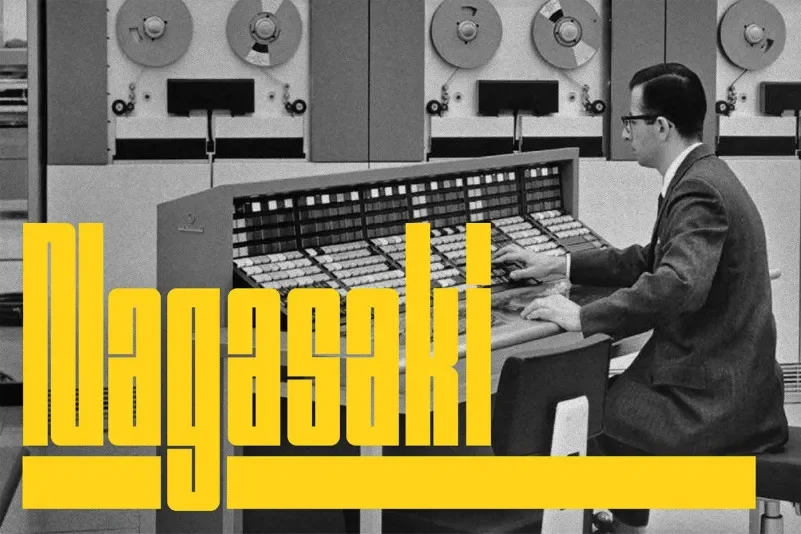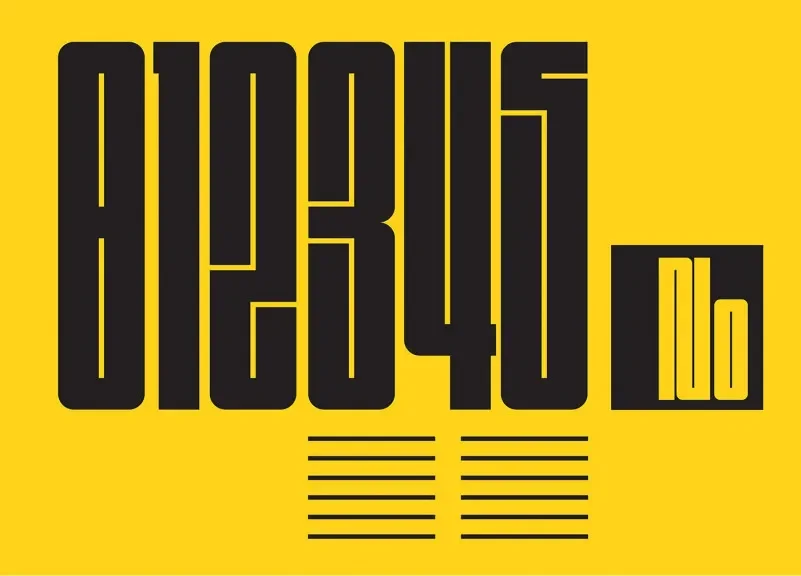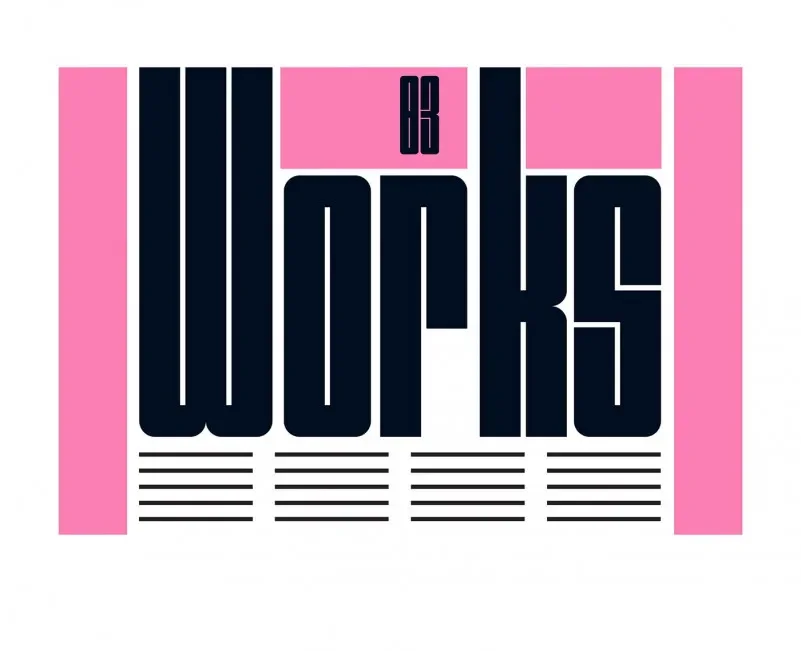
Nagasaki Font grabs attention with its playful disparities, it’s like a spirited dance across your text. Created by Sasha Iacob and Vlad Poparlan, this display sans serif mixes varying letter heights and shifting baselines to give your design a lively, handcrafted feel. It’s not meant for long read-alongs, but it shines on posters, T-shirts, social graphics, and logos that need personality.
Designers: Sasha Iacob & Vlad Poparlan
Style: Playful display sans serif with mixed letter heights
Bold uppercase and lowercase characters with quirky baseline shifts
Fun, contrasting letter heights for energetic displays
Supports standard Latin alphabet, numerals, and punctuation (approx. 69 glyphs)
This Font is a mood-maker perfect for greeting cards, posters, apparel prints, social media banners, or creative brands. To balance its playful energy, pair it with a calm sans serif like Open Sans or Lato, and let Nagasaki do the talking.